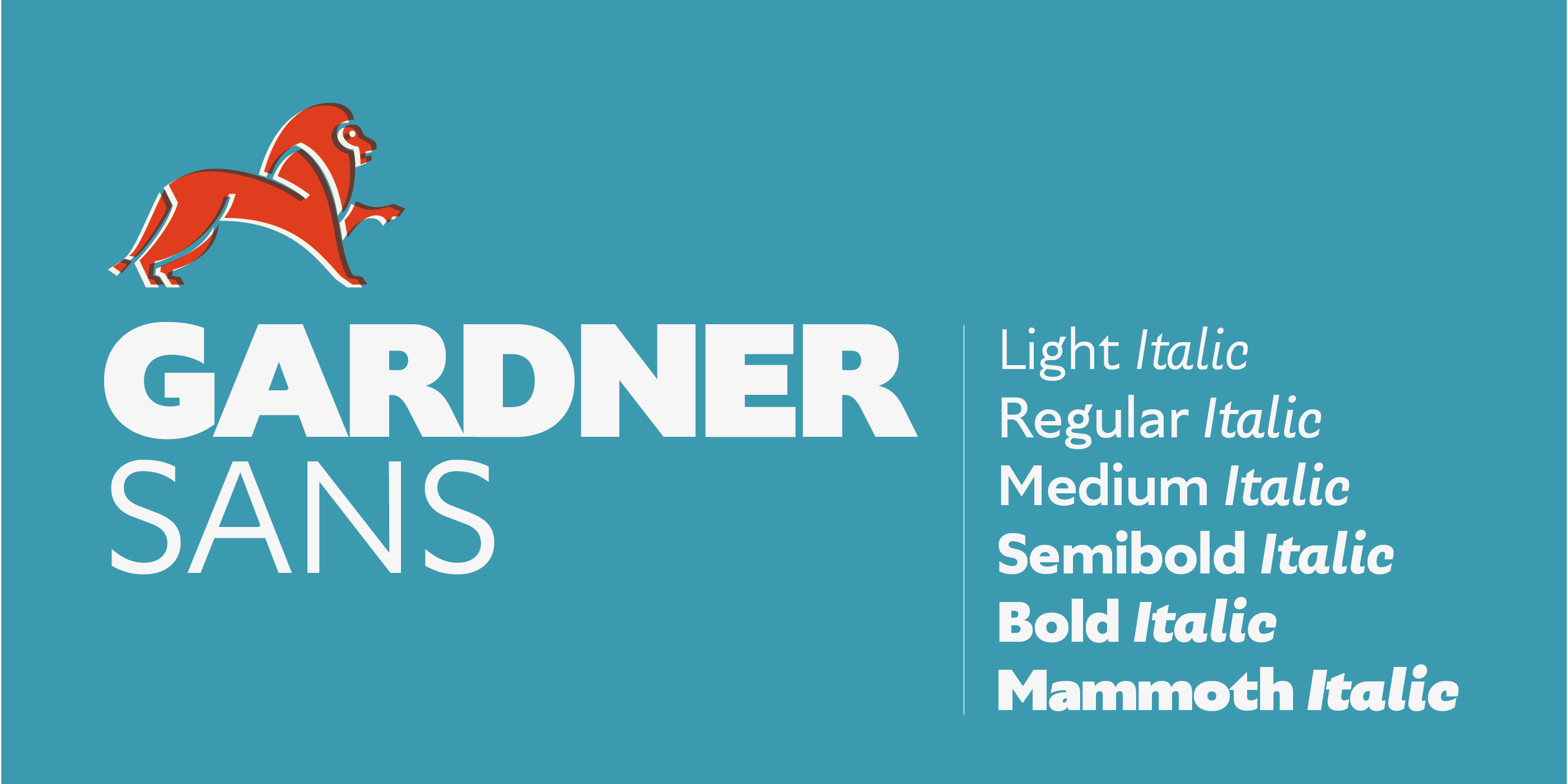
Gardner Sans Font is perfect for various applications including clean corporate branding, modern web interfaces, minimalist design projects, professional business communications, contemporary magazine layouts, sleek app designs, refined marketing materials, sophisticated presentation graphics, elegant editorial typography, and streamlined digital experiences.
What makes Gardner Sans Font so exciting is its perfect embodiment of contemporary minimalism and professional elegance through clean, sophisticated typography that achieves maximum impact with refined simplicity. This distinguished typeface features crisp, geometric letterforms with modern proportions and clean details that capture the essence of contemporary design philosophy and professional excellence. The font's sophisticated character and minimalist aesthetic make it ideal for brands that want to convey professionalism, modernity, and refined taste to audiences who appreciate clean design, contemporary aesthetics, and sophisticated simplicity.
Gardner Sans Font family includes multiple weights and styles: Thin, Light, Regular, Medium, Bold, Black, Condensed, Extended, and elegantly crafted Italic variants. Each family member maintains the font's signature clean sophistication while offering different levels of visual impact and stylistic flexibility for diverse contemporary and professional applications.
The Gardner Sans Font Free Download provides designers with access to a minimalist-inspired typeface that excels in corporate and contemporary design markets. Whether you're creating professional brand identities, designing clean marketing materials, or developing sophisticated digital experiences, this font delivers the refined aesthetic needed to establish credibility with design-conscious audiences and professional consumers. Its minimalist styling and contemporary essence make it particularly effective for tech companies, design studios, and modern professional services.
Typography purists will appreciate the clean construction and contemporary refinement in Gardner Sans Font's design. The font features precisely engineered letterforms with geometric proportions, optimized kerning for professional applications, and carefully calibrated details that ensure exceptional readability while maintaining its sophisticated character. From corporate presentations to minimalist websites, this typeface maintains its elegance and professional appeal across all contemporary contexts.
For modern web designers, Gardner Sans Font provides outstanding performance in clean digital environments and professional platforms. The font's technical specifications are optimized for various screen resolutions while preserving the crisp, minimalist edges that define its sophisticated character. Its versatility makes it suitable for both static professional content and dynamic interactive experiences.
Creative professionals working in corporate communications, contemporary design, professional services, and minimalist branding will find Gardner Sans Font to be an essential tool for projects requiring sophisticated visual communication. The font's ability to convey professionalism, modernity, and refined elegance makes it invaluable for brands targeting design-conscious demographics and professionally-minded audiences.
Design agencies specializing in corporate and contemporary brands appreciate Gardner Sans Font's versatility in creating memorable minimalist identities.